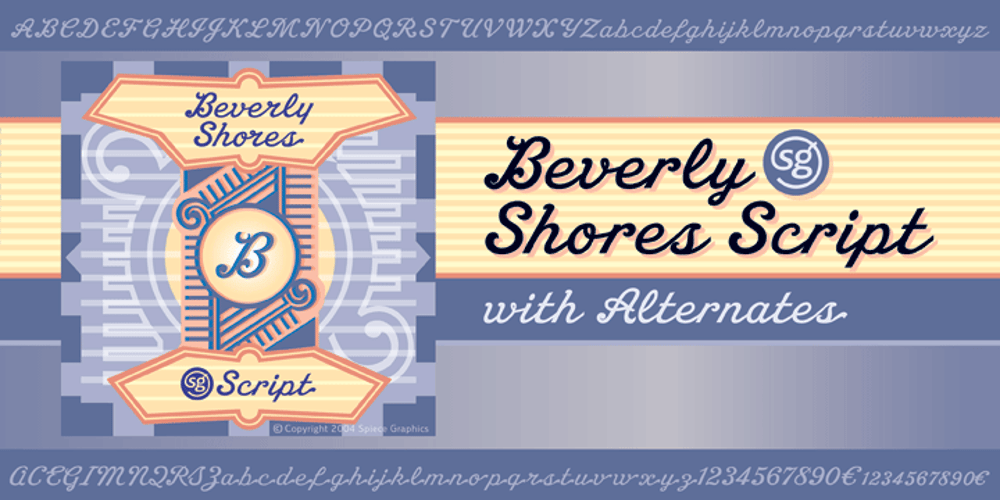
Beverly Shores Script SG Font Family was designed by Jim Spiece and published by Spiece Graphics. Beverly Shores Script SG contains 1 styles and family package options. If you take the South Shore Line from Chicago to South Bend, your train will pass though the small community of Beverly Shores, Indiana. The beautifully restored and highly colorful “Beverly Shores” train station sign not far from the Lake Michigan beach is the source of inspiration for this connecting script typeface. The sign’s existing ten letters have now been extended to include the entire alphabet. This old-fashioned depot letterstyle is much in the spirit of such faces as Fulton Sign and Inserat Cursive. Ascenders and descenders have been lengthened and capitals are now much larger. Alternate lowercase swashes, capitals, and small figures have been included for your convenience. And custom uphill words such as “The,” “for,” and “to” have been added for more novelty and spark in headline settings. Beverly Shores Script with Alternates is also available in the OpenType Std format. Some new characters including old style figures have been added to this OpenType version. Advanced features currently work in Adobe Creative Suite InDesign, Creative Suite Illustrator, and Quark XPress 7. Check for OpenType advanced feature support in other applications as it gradually becomes available with upgrades. All aboard for Beverly Shores!